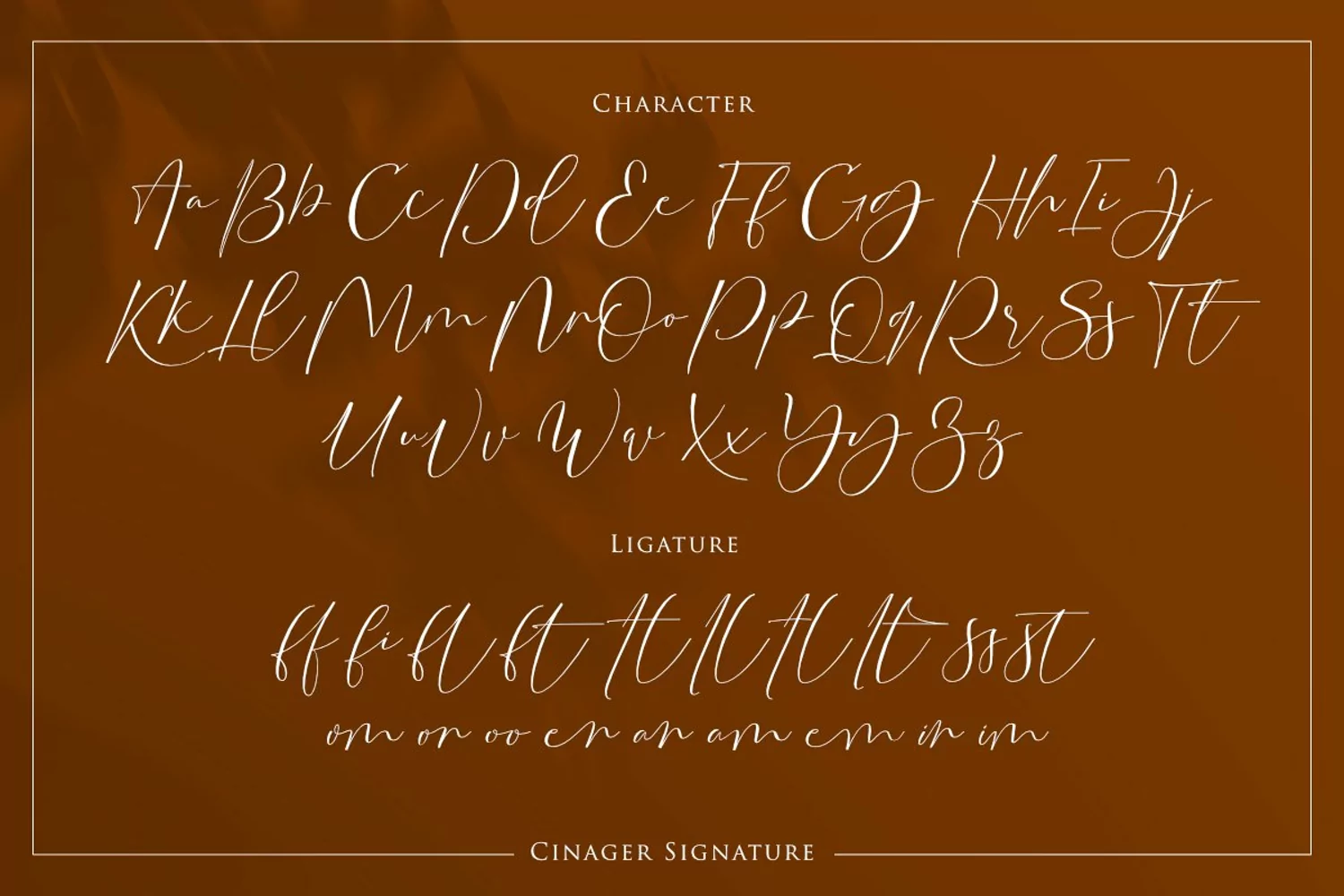
Introducing the new Cinager Signature font - A fashionable, luxury and super-chilled new handwriting font script. This font is perfect for branding. You won't get cute, whimsical, funny logos with this font. Only high-end, upscale, sophisticated Branding Design.